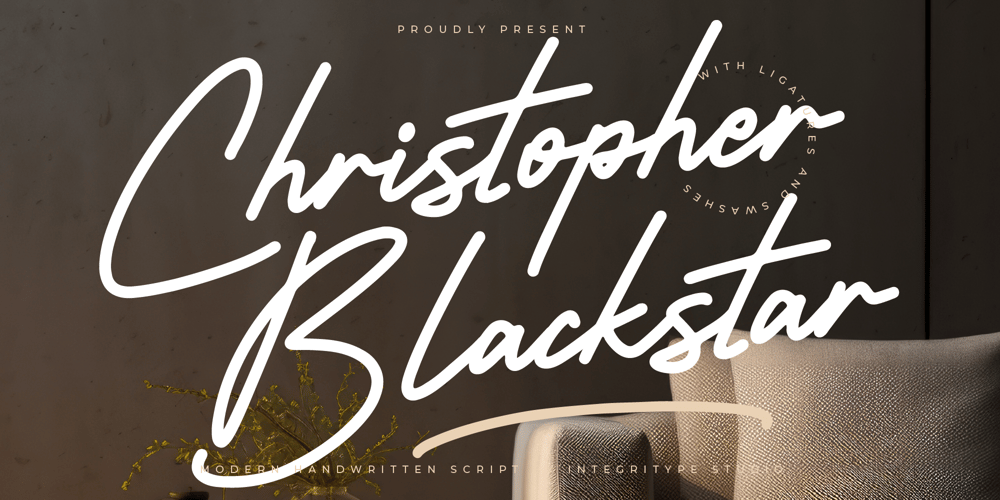
Christopher Blackstar Font Family was designed by Ranndy Rizky Febrian and published by Integritype. Christopher Blackstar contains 2 styles and family package options. Christopher Blackstar – Modern Handwritten Font, from Integritype Studio, perfect for any project like: logos, branding projects, homewares designs, product packaging, mugs, quotes, posters, shopping bags, t-shirts, covers books, business cards, invitation cards, greeting cards, labels, photography, watermarks, special events and all your other luxury projects that require a premium taste.============================================================What’s Included:Christopher BlackstarWeb FontsLigatures, Alternate & SwashesWorks on PC & MacSimple installationAccessible in Adobe Illustrator, Adobe Photoshop, Adobe InDesign, even working in Microsoft Word.PUA Encoded Characters – Fully accessible without additional design software.The font includes support for 65 languages; Afrikaans, Albanian, Asu, Basque, Bemba, Bena, Breton, Catalan, Chiga, Cornish, Danish, Dutch, English, Faroese, Filipino, French, Friulian, Galician, German, Gusii, Indonesian, Irish, Italian, Kabuverdianu, Kalenjin, Kinyarwanda, Luo, Luxembourg, Luyia, Machame, Makhuwa-Meetto, Makonde, Malagasy, Manx, Morisyen, North Ndebele, Norwegian Bokmål, Nynorsk Norwegian, Nyankole, Oromo, Portuguese, Quechua, Romansh, Rombo, Rundi, Rwa, Samburu, Sango , Sangu, Scottish Gaelic, Sena, Shambala, Shona, Soga, Somali, Spanish, Swahili, Swedish, Swiss, German, Taita, Teso, Uzbek (Latin), Volapük, Vunjo, Zulu,============================================================